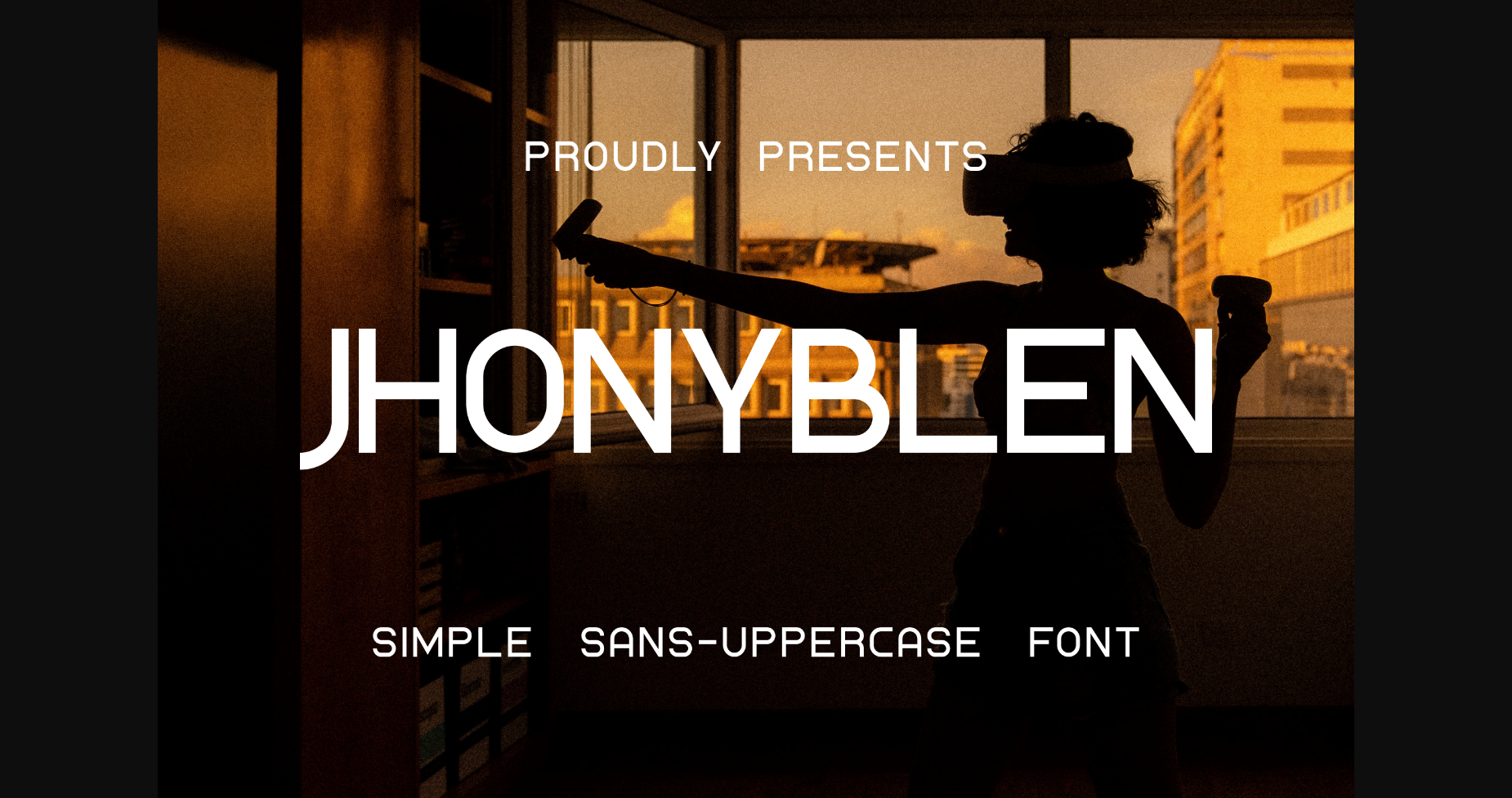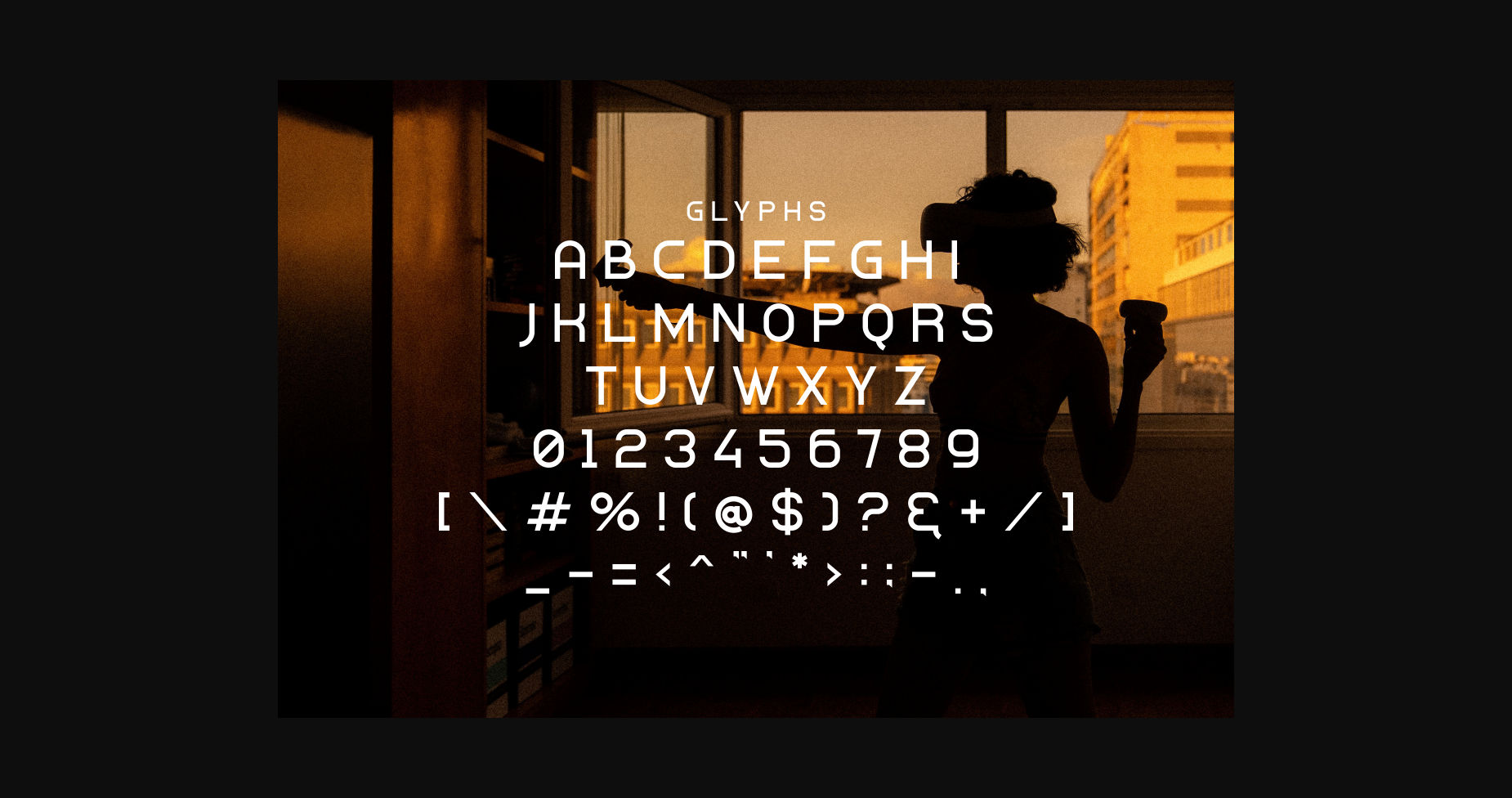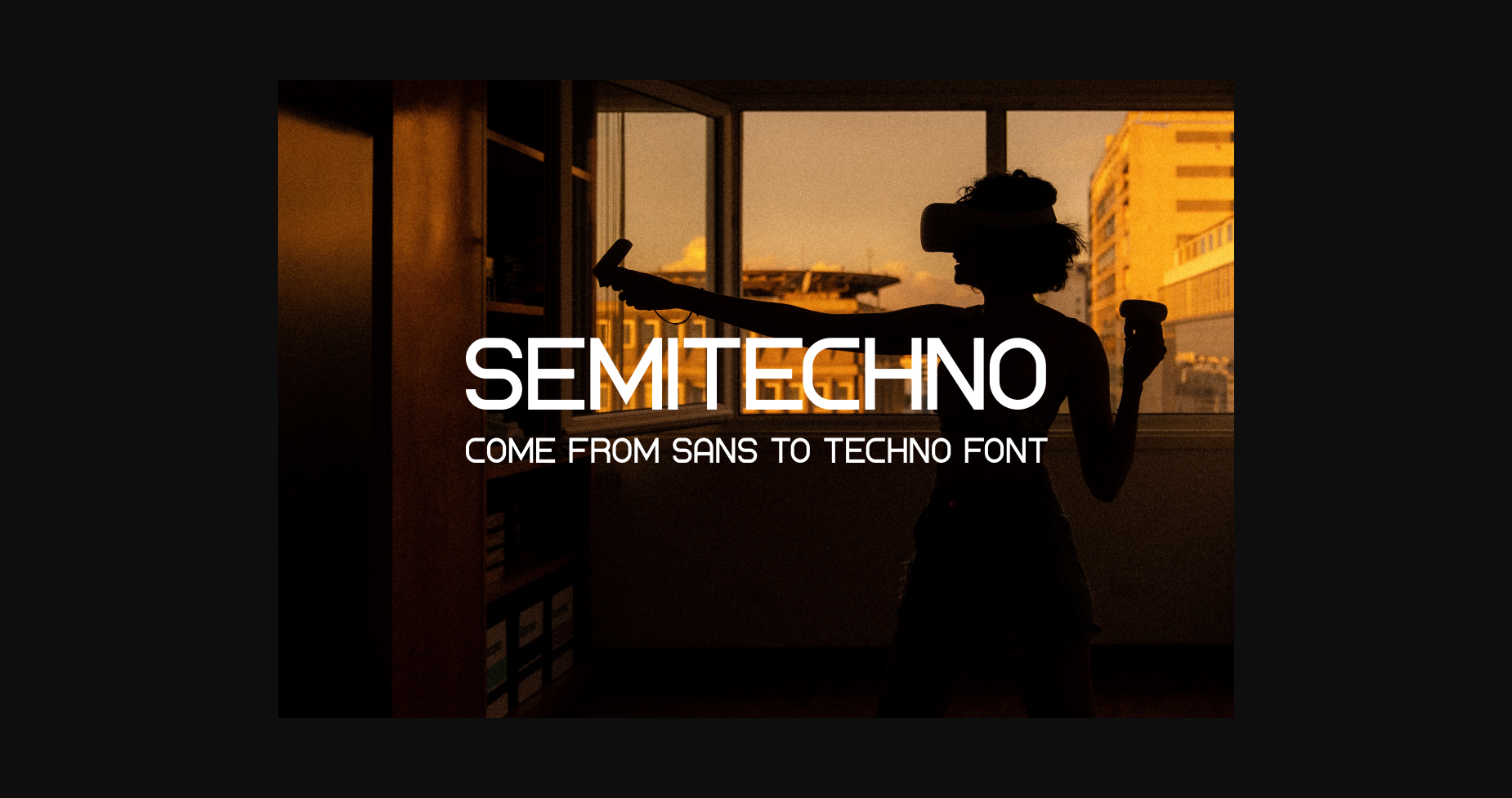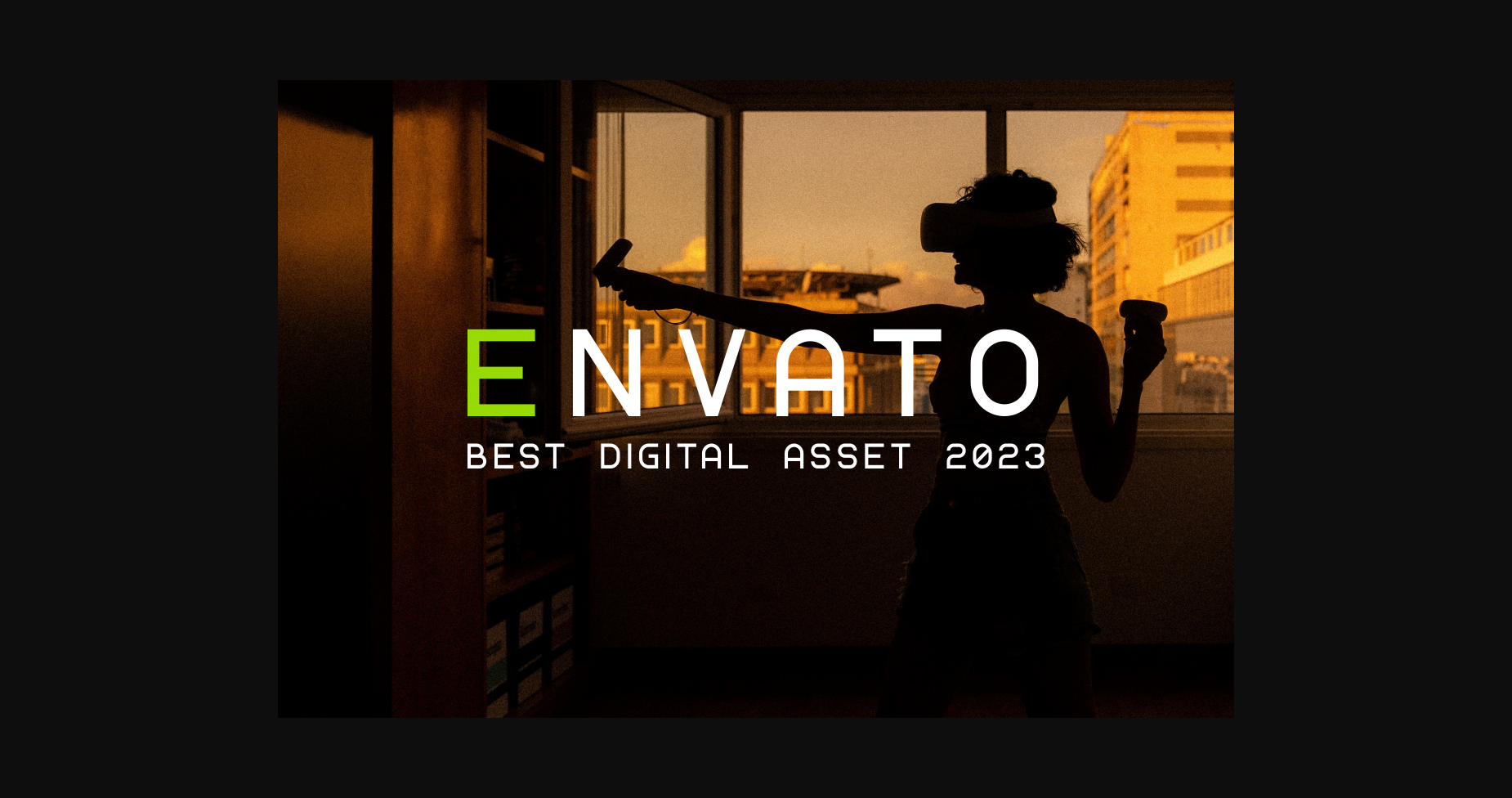
Jhonyblen is a cool and futuristic-looking sans serif font. Its modern and innovative style is perfect for robotics-related designs, sci-fi, or anything that requires a fresh and contemporary accent.